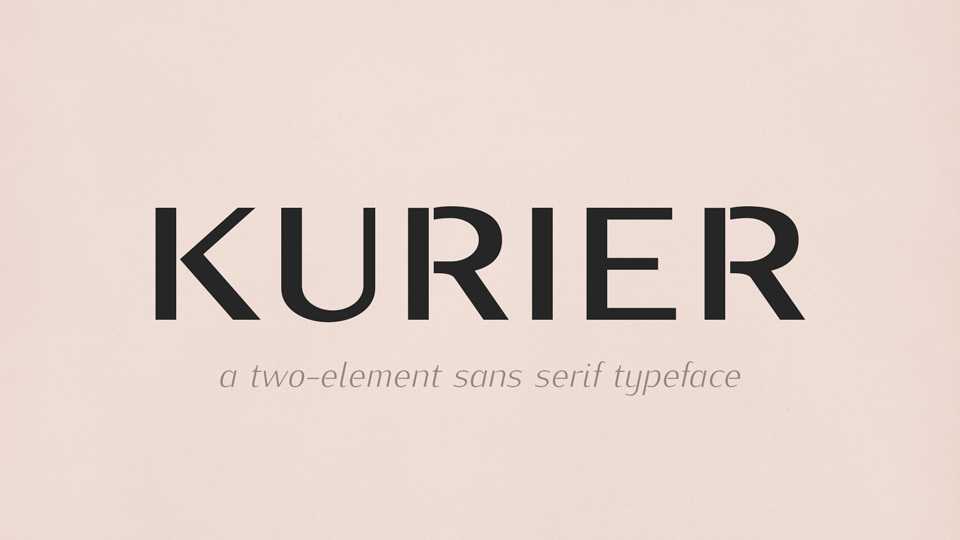
Download Kurier typeface, a two-element sans serif font family. Kurier was intended for linotype typesetting of newspapers and similar periodicals.
Designer: Janusz M. Nowacki